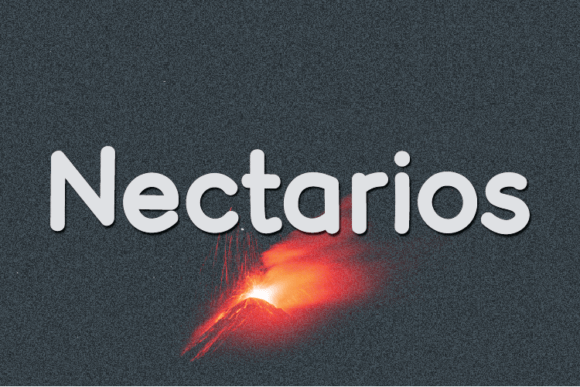
Nectarios font is a unique and beautiful sans serif font that is perfect for adding a touch of elegance to your designs. Its easy-to-read design and smooth curves will make your text stand out, whether you're using it for titles, body text, or anything in between.
Nectarios is perfect for creating stunning social media posts, eye-catching logos, or beautiful website designs. It can also be used for a range of marketing materials including posters, flyers, and brochures.
Nectarios is a versatile font that can be used for a wide variety of projects. It is perfect for both personal and commercial use, so you can use it for anything from your own personal blog to a professional website.
If you are looking for a beautiful and unique font that will add a touch of elegance to your designs, then Nectarios is the perfect choice.
* Nectarios is a unique and beautiful sans serif font that will make your text stand out.
* Nectarios is perfect for creating stunning social media posts, eye-catching logos, and beautiful website designs.
* Nectarios is a versatile font that can be used for a wide variety of projects.